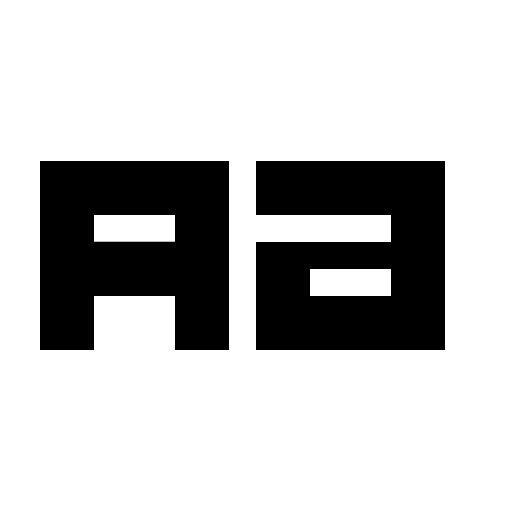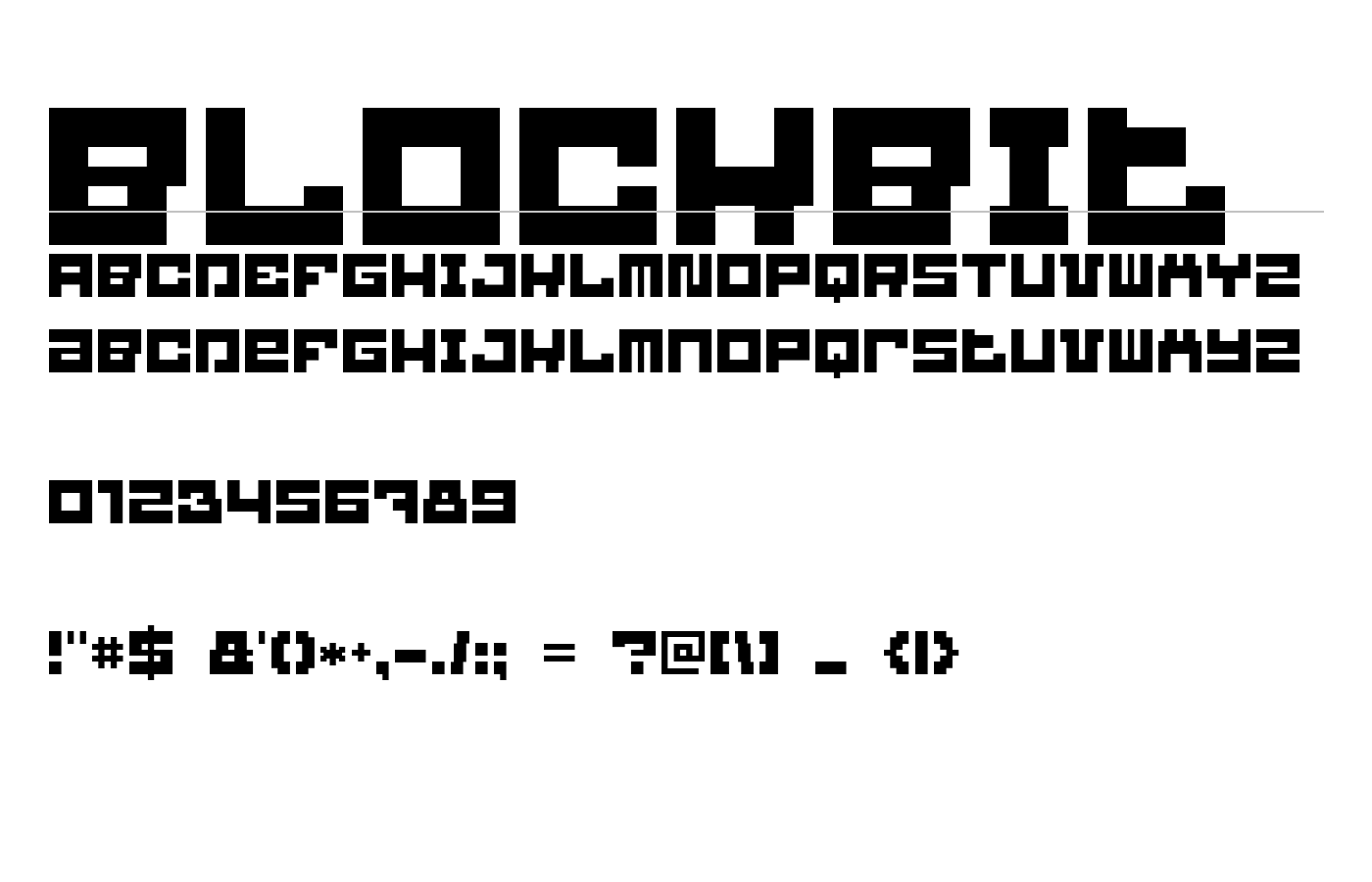
BlockBit is a bold, geometric sans serif font with a pixelated, block-style design that evokes a retro digital or video game feel. Its rigid, square shapes and consistent stroke weight make it highly legible and perfect for creating a strong, tech-inspired aesthetic. This font works especially well in gaming, digital branding, posters, and headlines where a futuristic yet nostalgic vibe is desired.